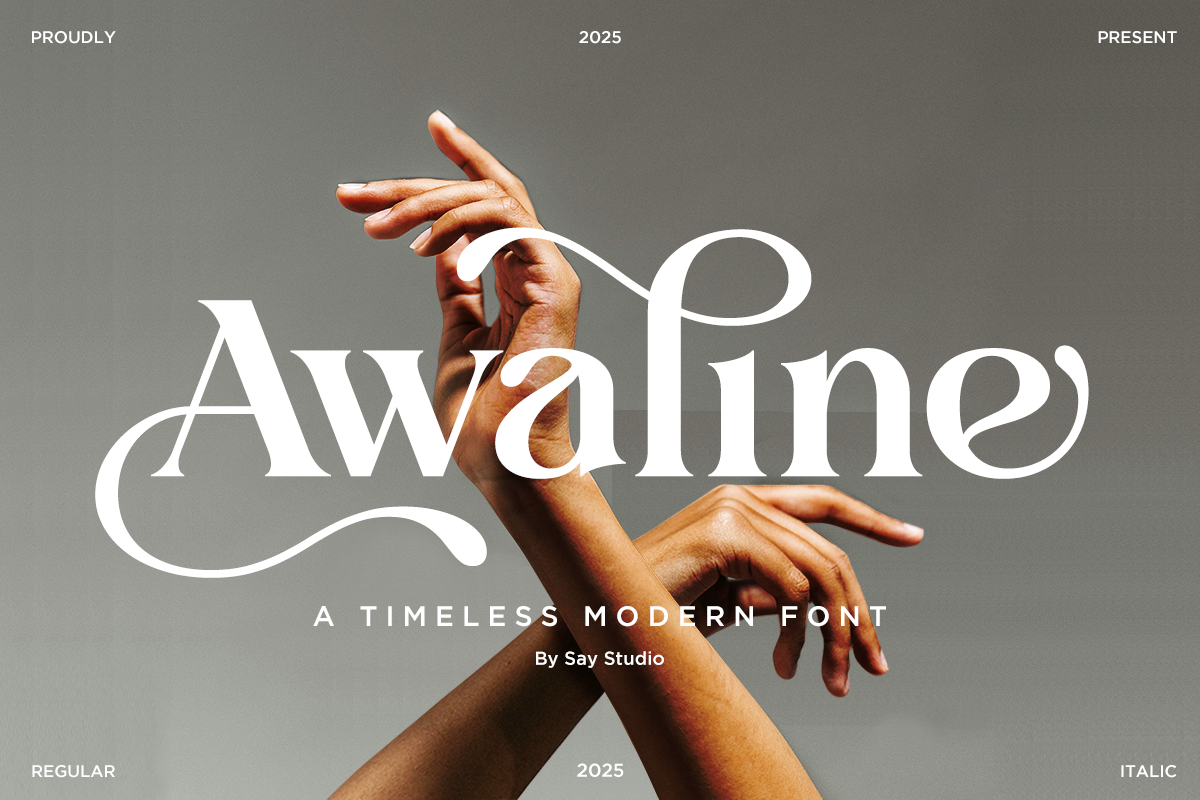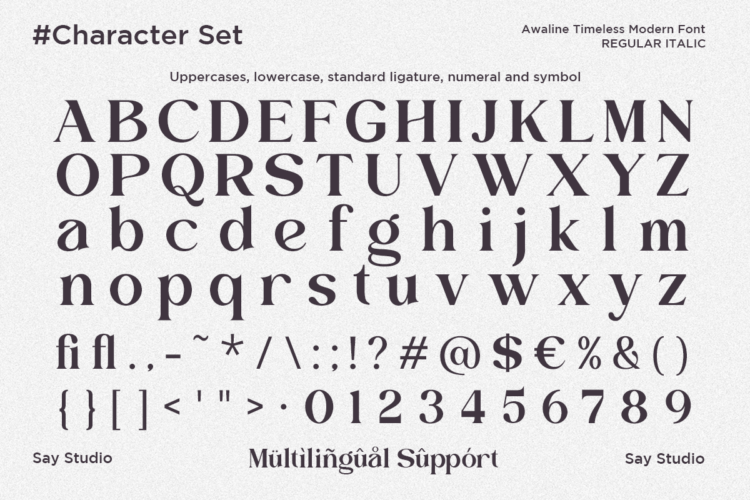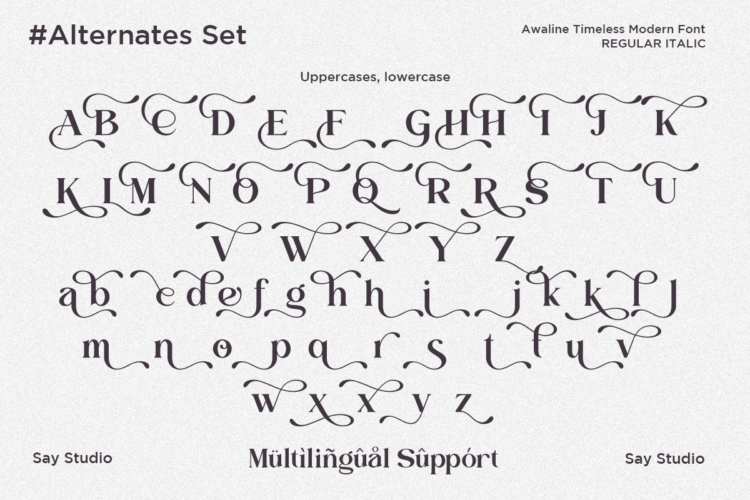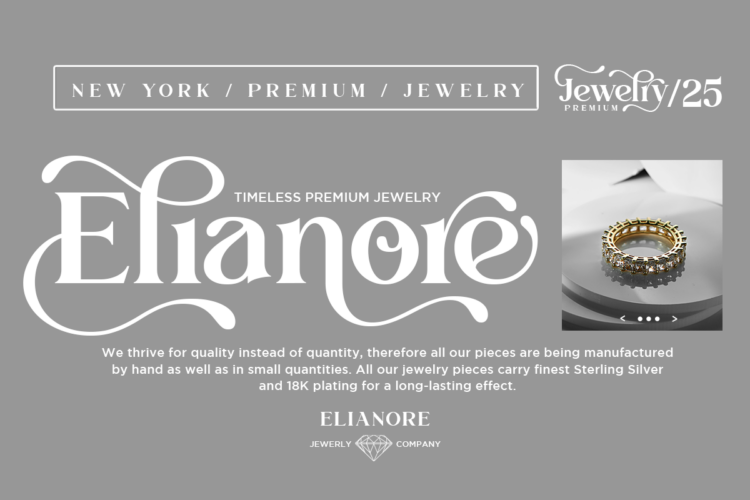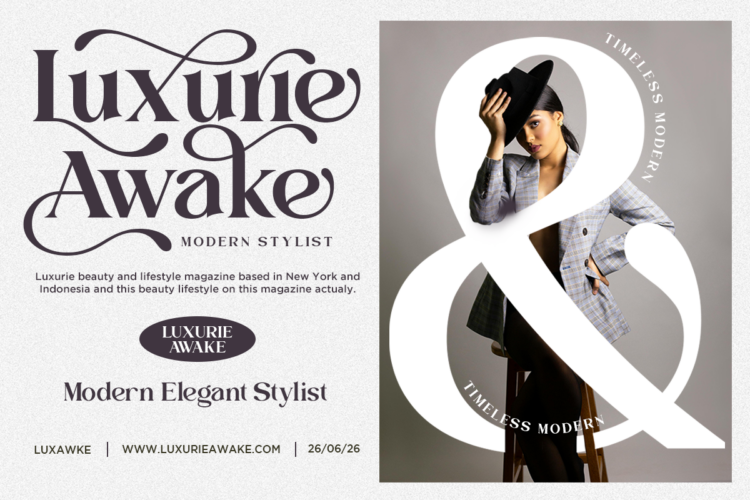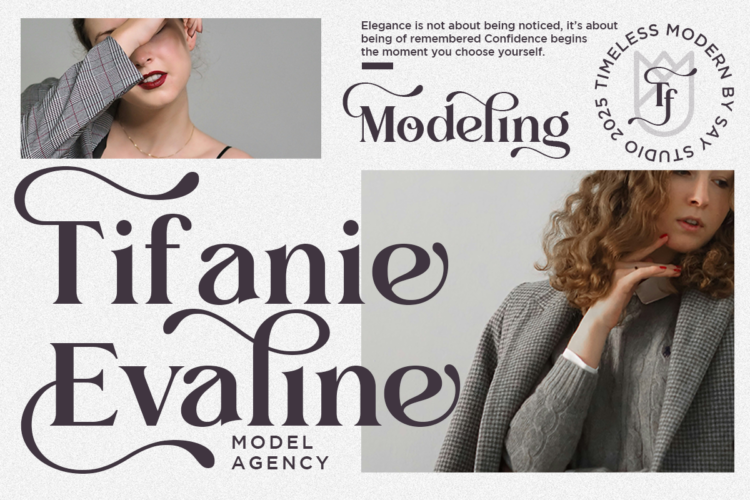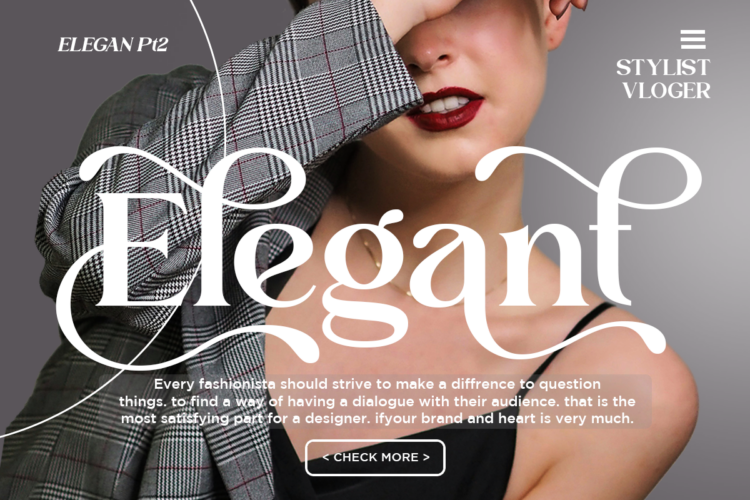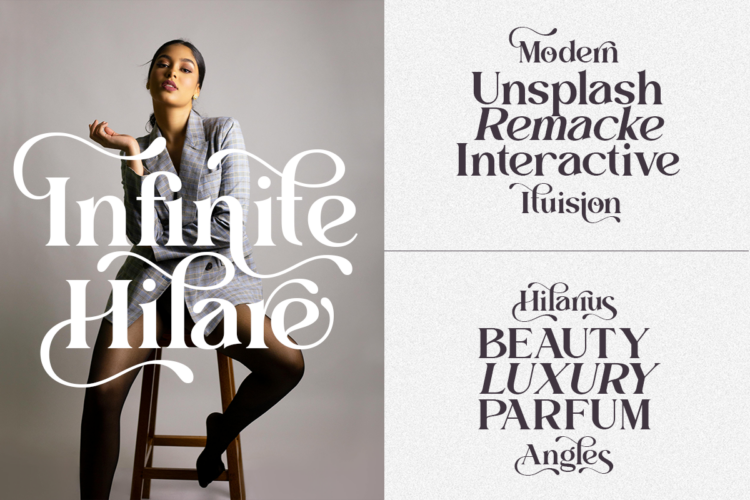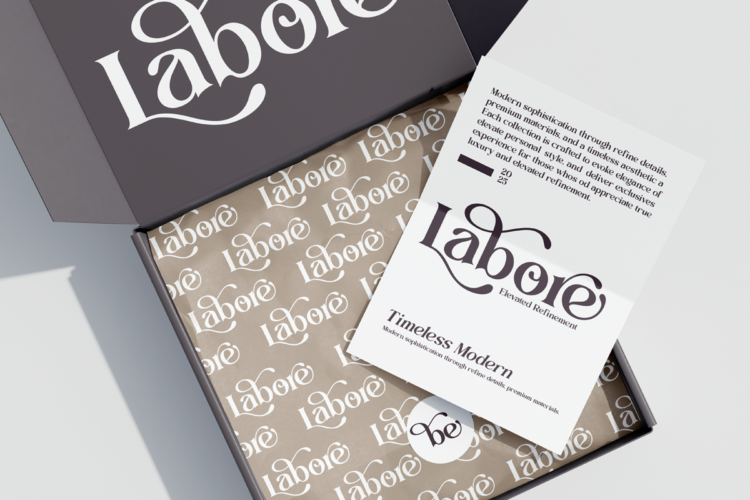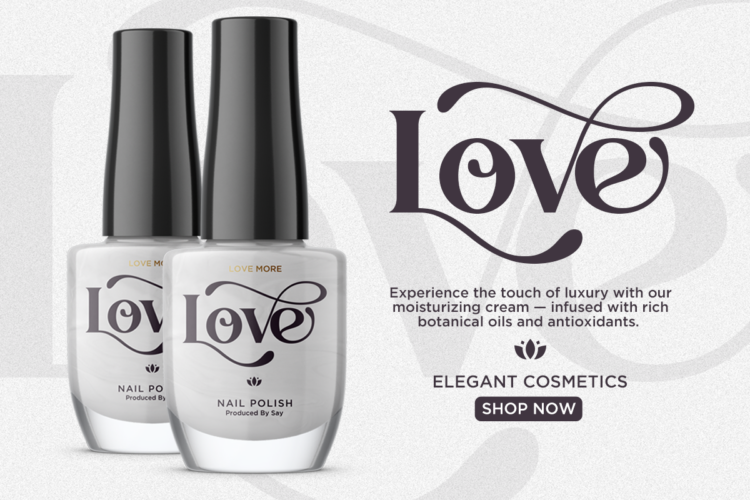
Awaline – Timeless Modern Serif Typeface
Awaline is a timeless modern serif typeface that embodies elegance, luxury, and refined sophistication. Designed with graceful swashes, stylish ligatures, and beautifully crafted alternates, Avaline brings an effortless balance between classic beauty and contemporary design. Every character is thoughtfully shaped to create eye-catching typography that elevates premium branding and creative projects.
Perfect for fashion labels, luxury branding, beauty products, wedding stationery, editorial layouts, jewelry collections, cosmetic packaging, boutique businesses, and elegant logos, Avaline offers exceptional versatility across print and digital media. Featuring multilingual support, OpenType alternates, decorative swashes, ligatures, numerals, and punctuation, this font provides everything designers need to create polished and memorable visual identities.
Whether you’re designing luxury packaging, magazine covers, social media campaigns, premium invitations, or sophisticated brand identities, Avaline delivers timeless elegance with modern functionality. Its distinctive letterforms and flowing decorative details make it the perfect serif typeface for designers seeking graceful typography with lasting visual impact.
– Standard Ligature, Uppercase, & Lowercase